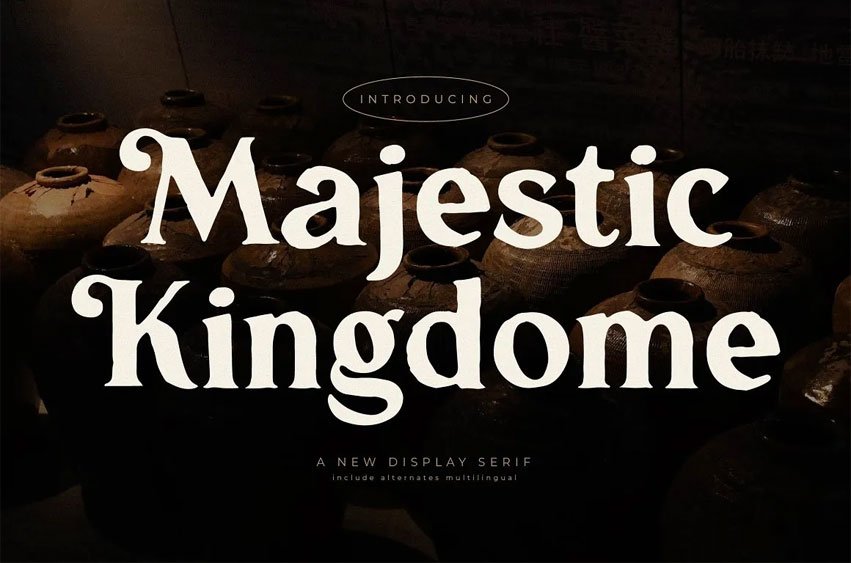
Majestic Kingdome Font is a new display serif font that has own unique style & modern look. This typeface is perfect for an elegant & luxury logo, book or movie title design, fashion brand, magazine, clothes, lettering, quotes, and so much more.